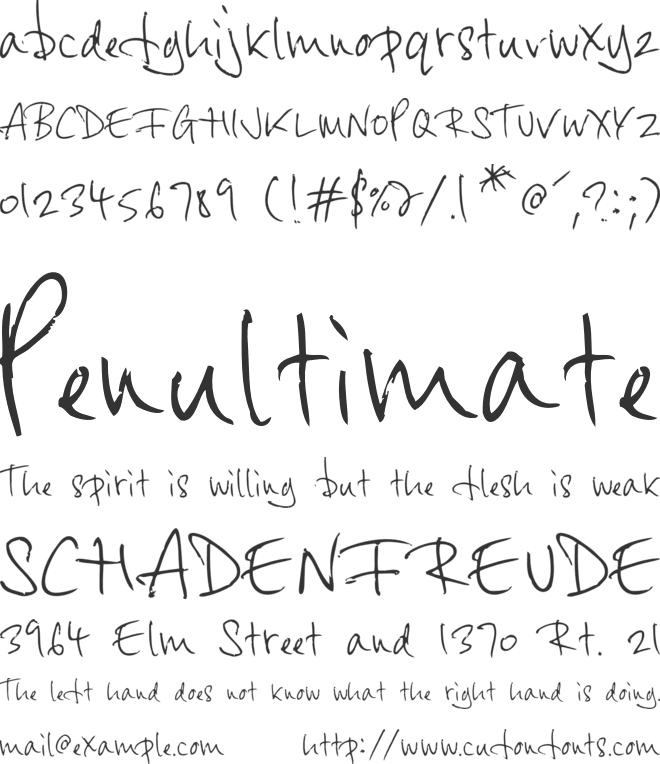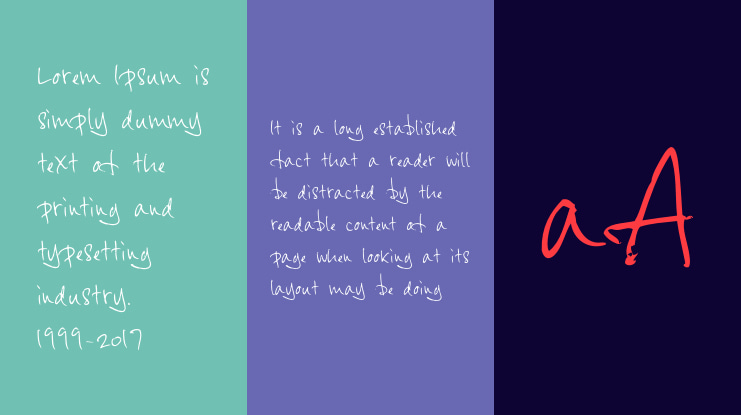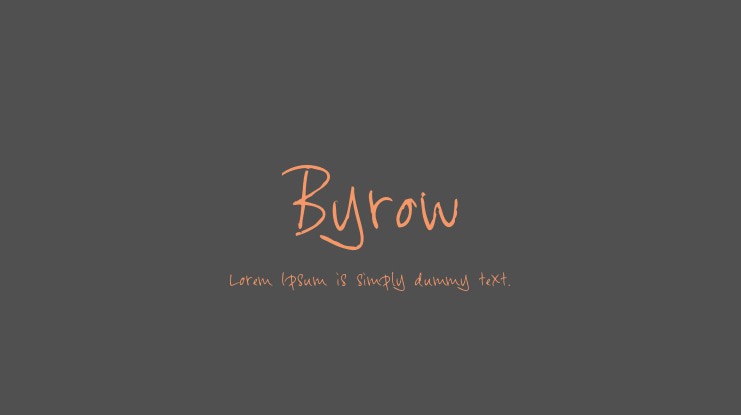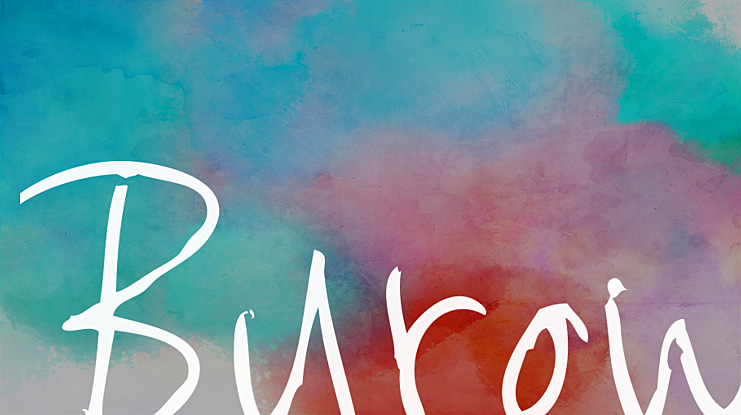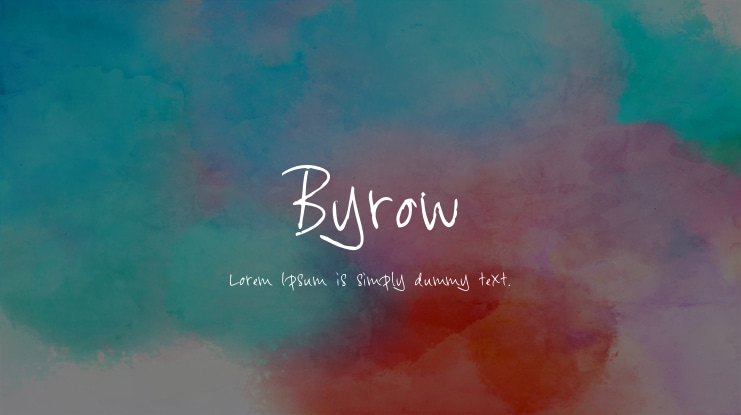
Byrow Font
This is a scribbly handwritten font, based on my own fair scrawl. It's not perfect and may have some glitches, but it makes for a nice note making appearance especially when coloured in Biro blue. Free to use, but if you do make hard cash as a result, a donation would be welcome!